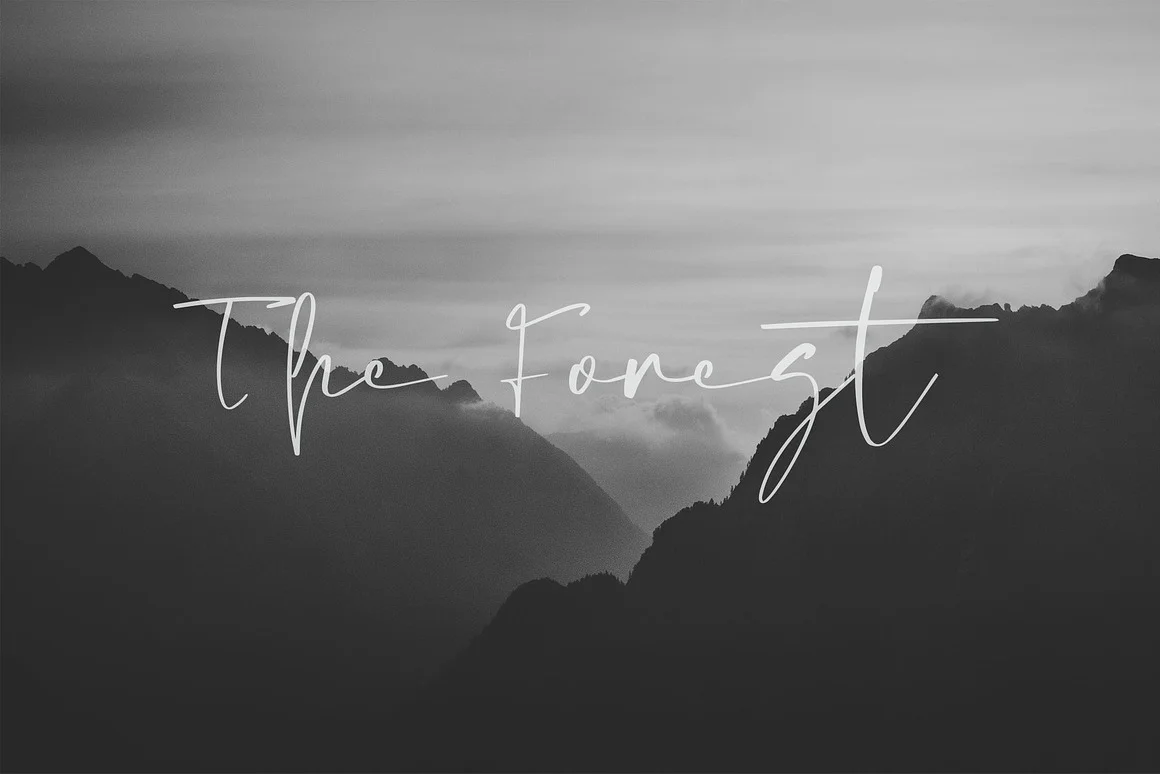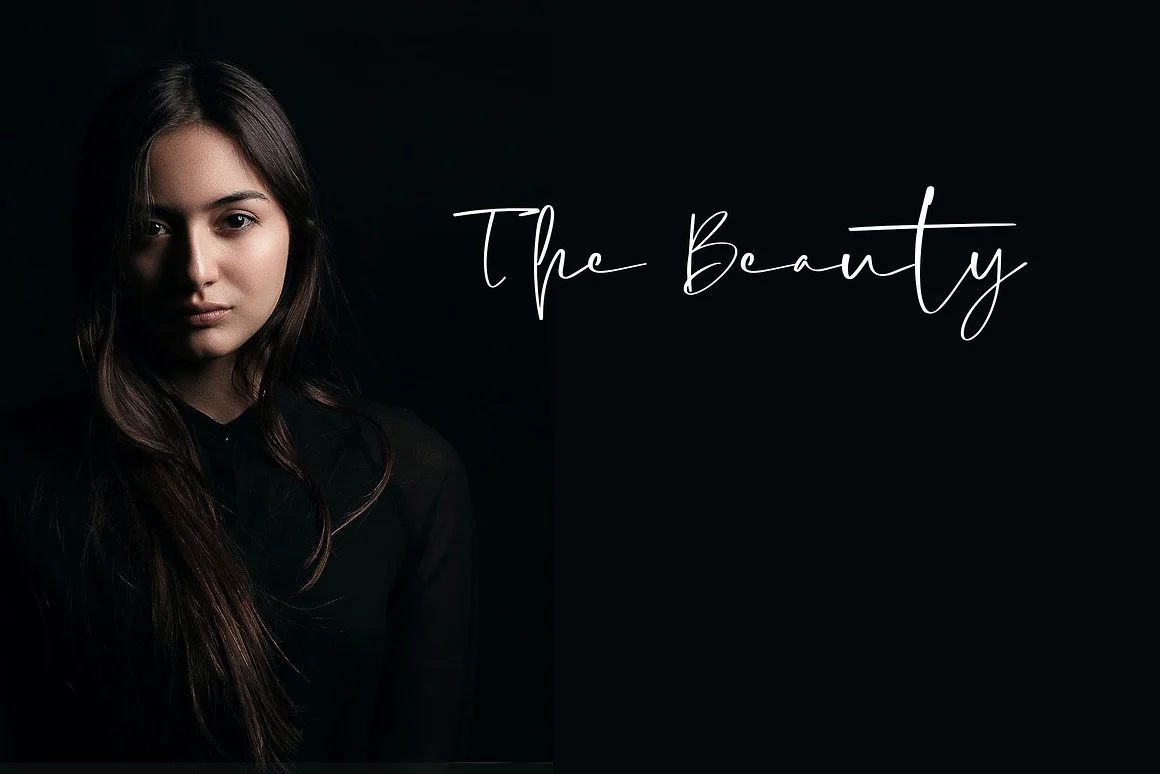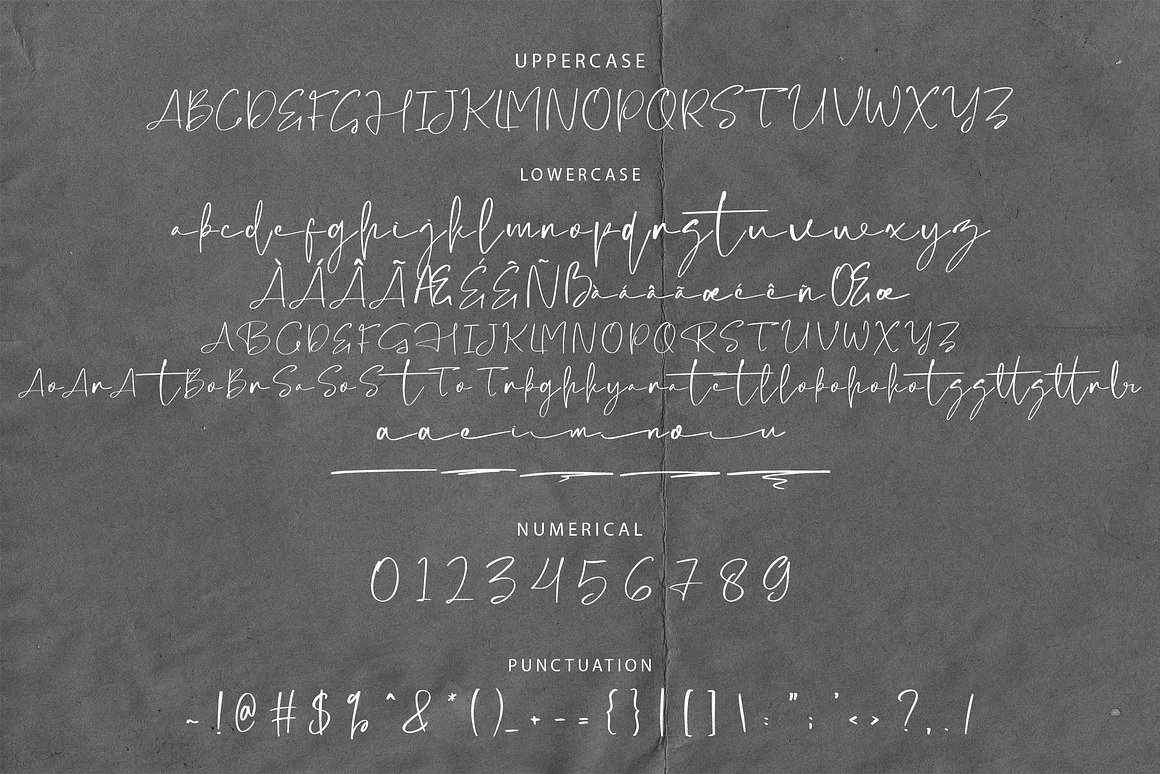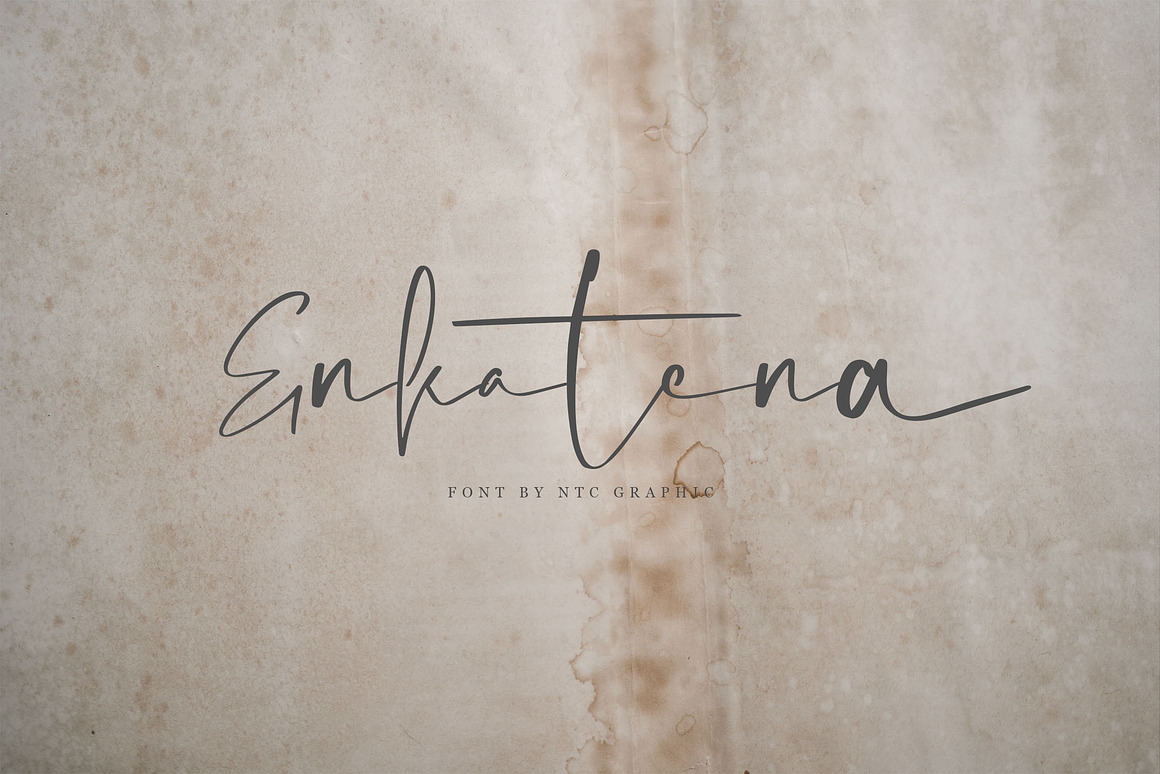
Enkatena Signature Script Font
The Enkatena Signature Script Font excels in captivating design applications including enchanting brand identities, alluring business logos, mesmerizing wedding invitations, bewitching product packaging, captivating business cards, artistic portfolios, enthralling greeting cards, spellbinding social media graphics, enchanting event signage, and mesmerizing marketing materials. Its captivating script style makes it perfect for projects requiring hypnotic elegance that communicates allure and establishes enchanting brand positioning with audiences seeking magnetic experiences and captivating sophistication.
What makes the Enkatena Signature Script Font genuinely exciting is its exceptional ability to capture magnetic charm and hypnotic beauty through mesmerizingly crafted letterforms. The font features flowing, captivating strokes with alluring flourishes and enchanting proportions that create a distinctly spellbinding appearance. Each character displays remarkable attention to captivating detail with mesmerizing curves, hypnotic connections, and magnetic spacing that give text a bewitching, hand-lettered quality. The font's captivating character and alluring rhythm create an atmosphere of enchantment while maintaining elegant sophistication and irresistible appeal.
The Enkatena Signature Script Font family typically includes regular weight with comprehensive character sets, featuring uppercase and lowercase letters, numerals, punctuation, and international glyphs. The typeface often incorporates stylistic alternates, contextual ligatures, and captivating swashes that enhance its signature magnetism. These additional elements provide designers with creative options to customize text appearance and achieve more natural-looking hypnotic handwriting that reflects the font's enchanting and captivating character.
This mesmerizing signature font distinguishes itself through its remarkable balance of allure and professional elegance. Unlike ordinary fonts that lack magnetic appeal, Enkatena Signature Script Font embraces the power of captivating design to draw attention and create irresistible connections with audiences. The font's hypnotic character makes it essential for luxury brands, entertainment businesses, and captivating projects where creating magnetic attraction and memorable experiences is fundamental to success in competitive attention-seeking markets.
The Enkatena Signature Script Font offers designers an exceptional opportunity to incorporate magnetic elegance into their captivating projects. From luxury beauty brands to entertainment venues, this font delivers the mesmerizing signature aesthetic that resonates with audiences who appreciate alluring experiences and captivating sophistication. Its hypnotic appeal ensures your designs communicate irresistible charm while the signature styling adds distinctive personality that reflects magnetic excellence and captivating beauty in any application requiring enchanting typography solutions.